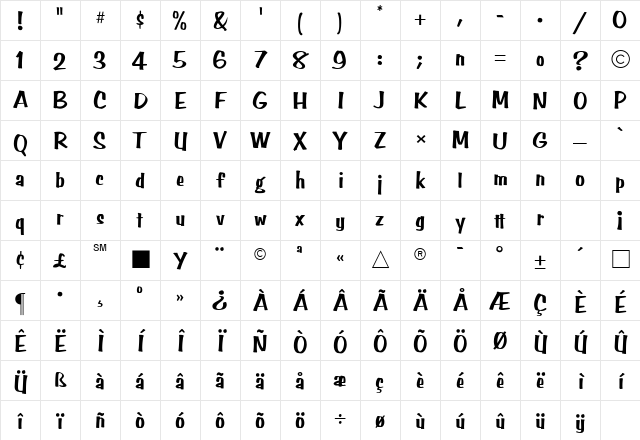
Complete CgBenguiatFrisky Bold glyph index. Displaying only characters natively supported by CgBenguiatFrisky Bold font.
CgBenguiatFrisky is a composed and adaptable typeface that performs quietly and consistently across a wide range of design contexts. Its bold stroke weight gives it real presence on the page.